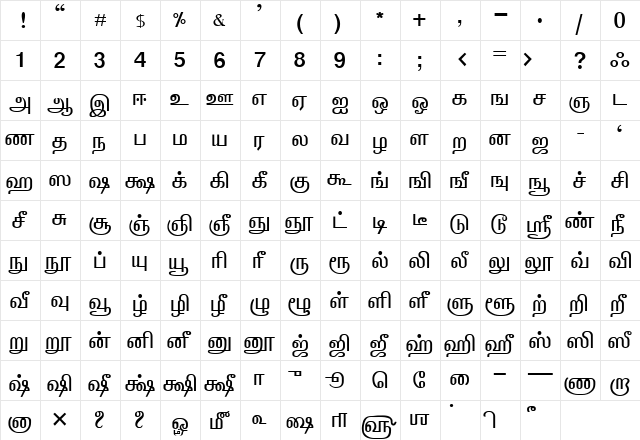
ELANGO-TML-Panchali-Normal Normal
Design Context for ELANGO-TML-Panchali-Normal Typeface
ELANGO-TML-Panchali-Normal offers clean, dependable letterforms without strong stylistic allegiance, making it a practical choice for designers who need flexibility.